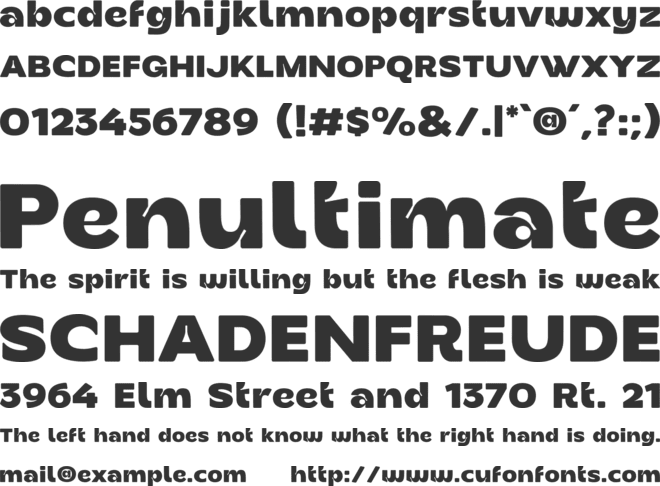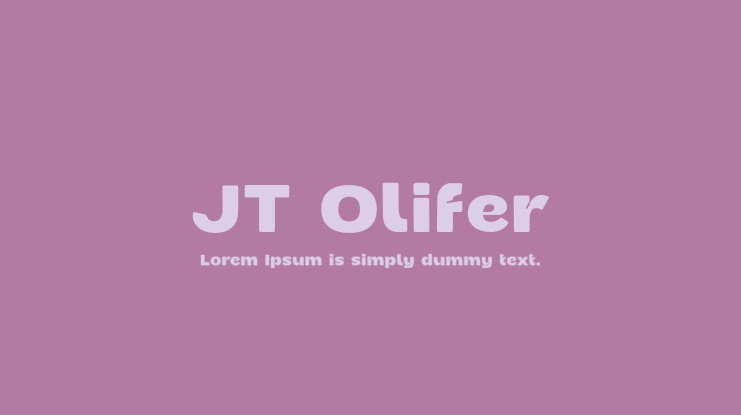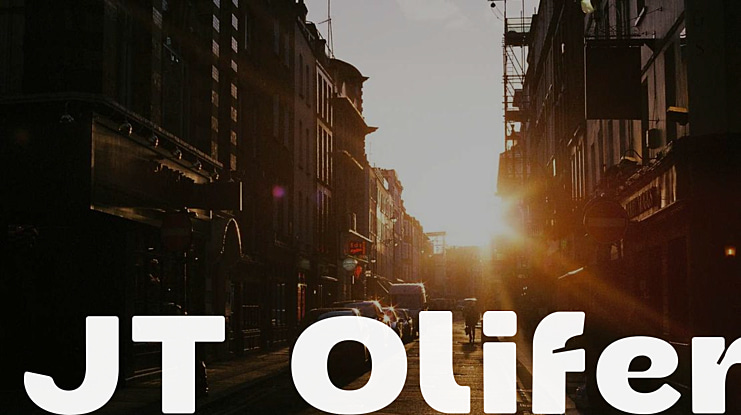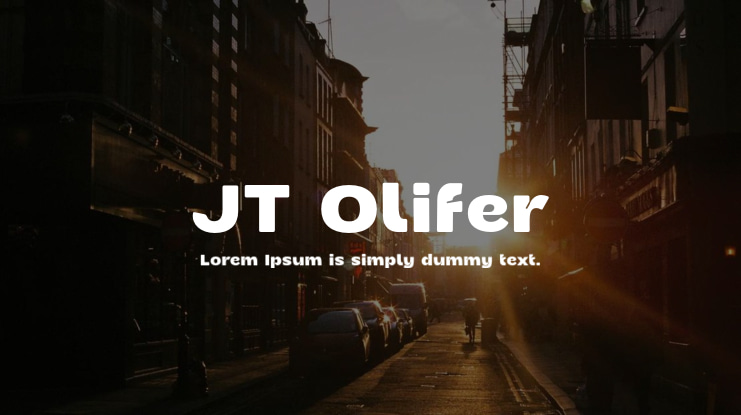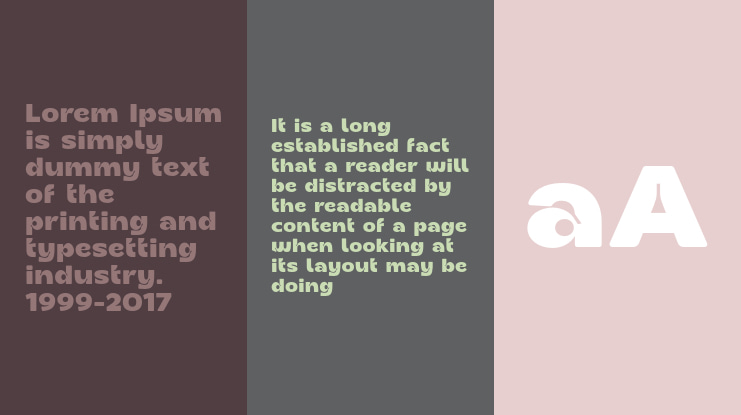
JT Olifer Font
Laire Banyu Sandi Pawenang
JT Olifer is a font family created by Laire Banyu Sandi Pawenang for Jolicia Type in October 2021. It is inspired by Modern Typography and developed from our unique perspective. We have paid meticulous attention to detail, ensuring that every corner of each glyph is carefully crafted and rounded. Additionally, we have added an inktrap accent to create a distinct and special impression. We have prioritized legibility throughout the design process, resulting in a font family consisting of 40 styles to cater to various visual needs.